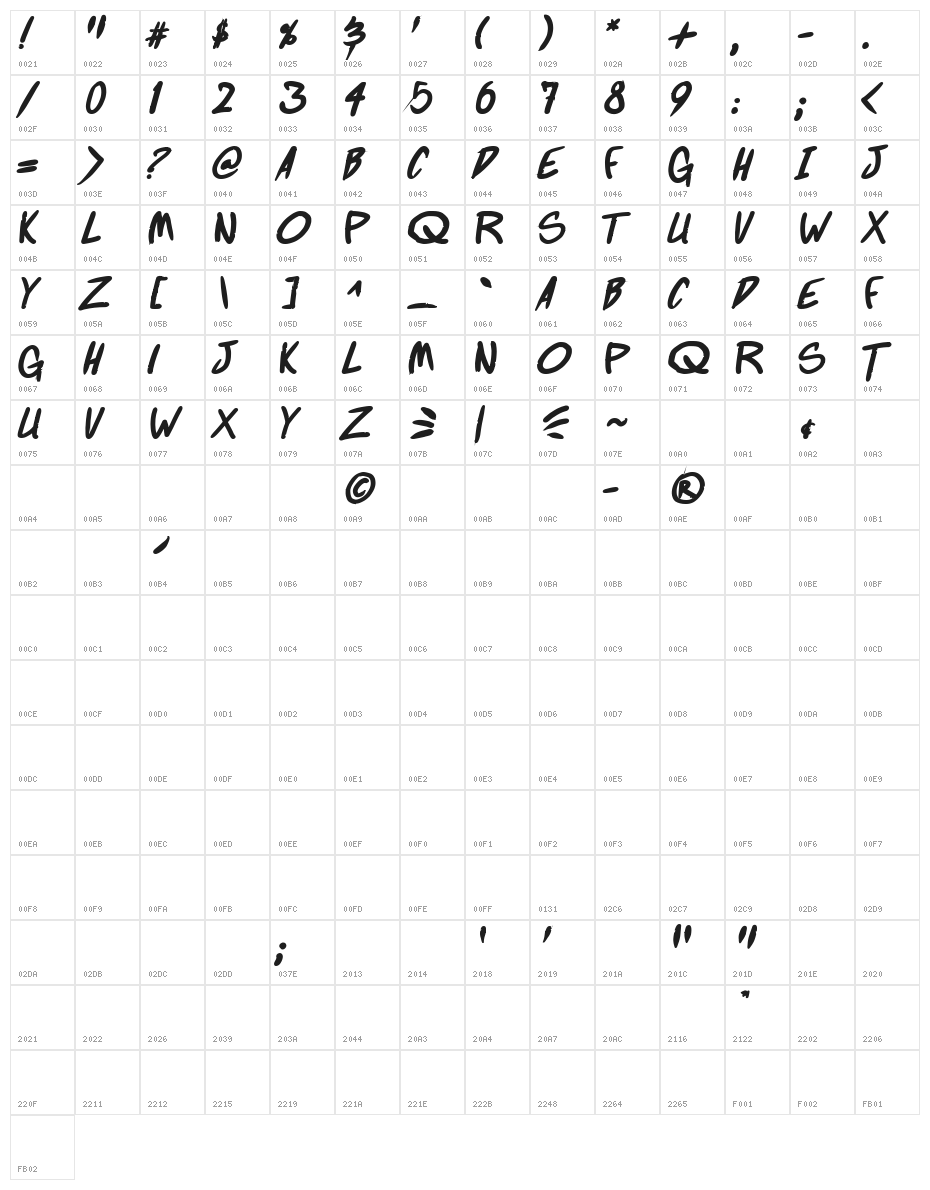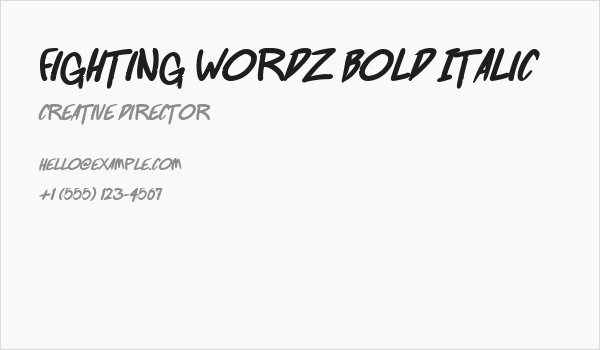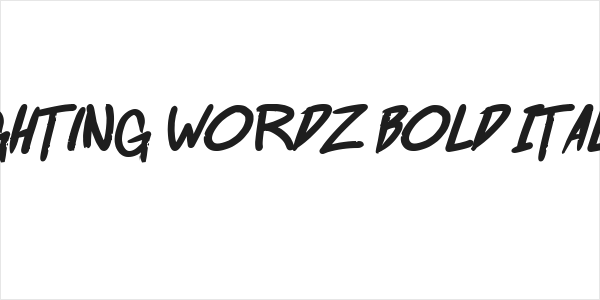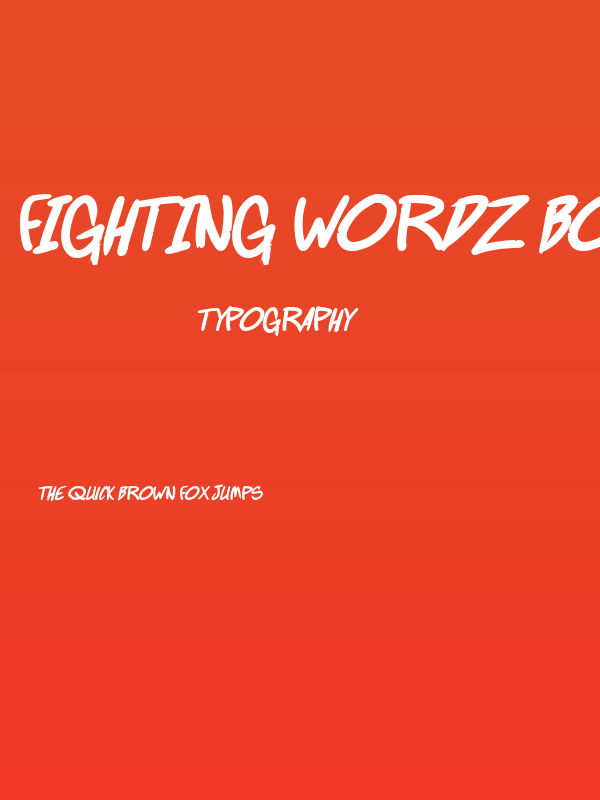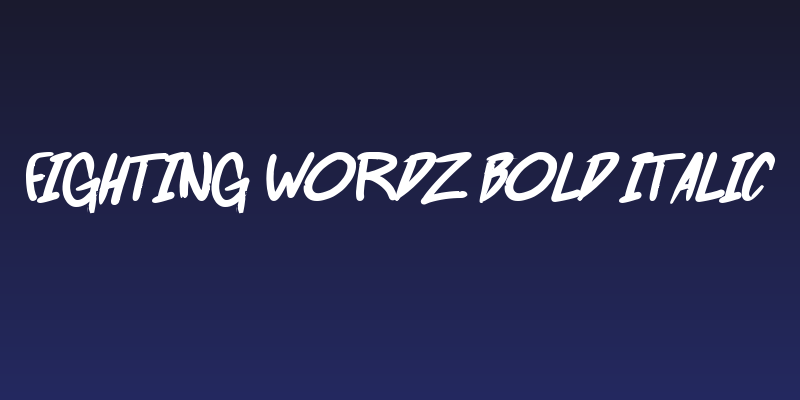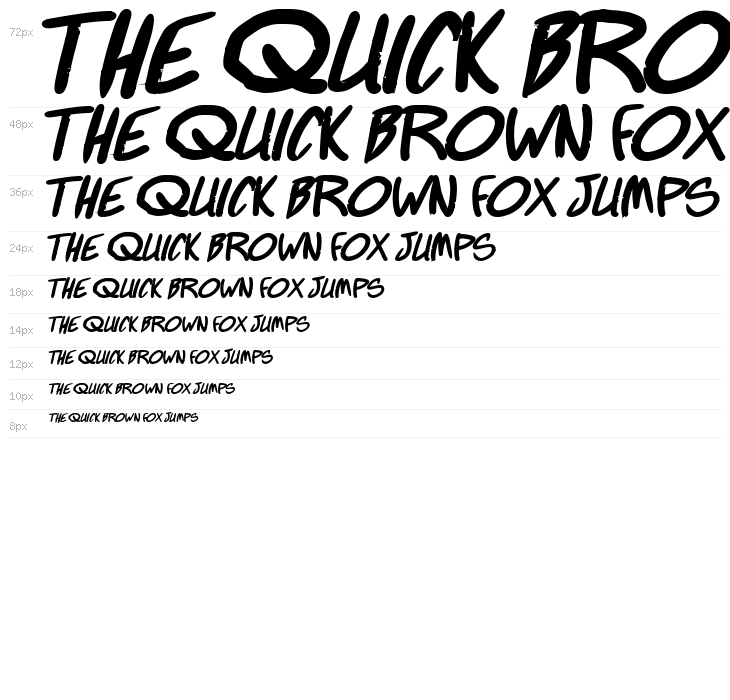
Fighting wordz Bold Italic Font
Fighting wordz Bold Italic Description
This font exudes a bold and dynamic energy, characterized by its thick, brush-like strokes that convey a sense of movement and urgency. The letters are slightly slanted, enhancing the italicized effect and giving it a sense of forward momentum. Each character is crafted with a sense of individuality, yet they all maintain a cohesive style that is both aggressive and artistic. The uppercase and lowercase letters are consistent in their boldness, while the numbers and special characters complement the overall aesthetic. This font is perfect for projects that require a strong, impactful visual presence.
| Proposed Projects | Ideal for posters, logos, branding materials, and any design requiring a bold statement. |